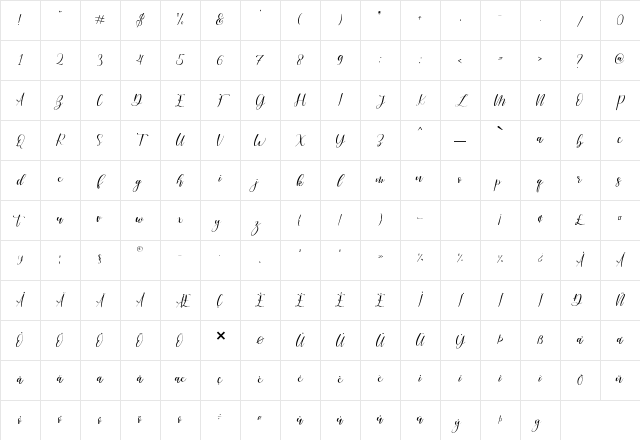
valentinaroses Regular
Designer: JunCreative (Muhamad Junaid) @mjart96
Design Context for valentinaroses
valentinaroses is a composed and adaptable typeface that performs quietly and consistently across a wide range of design contexts.